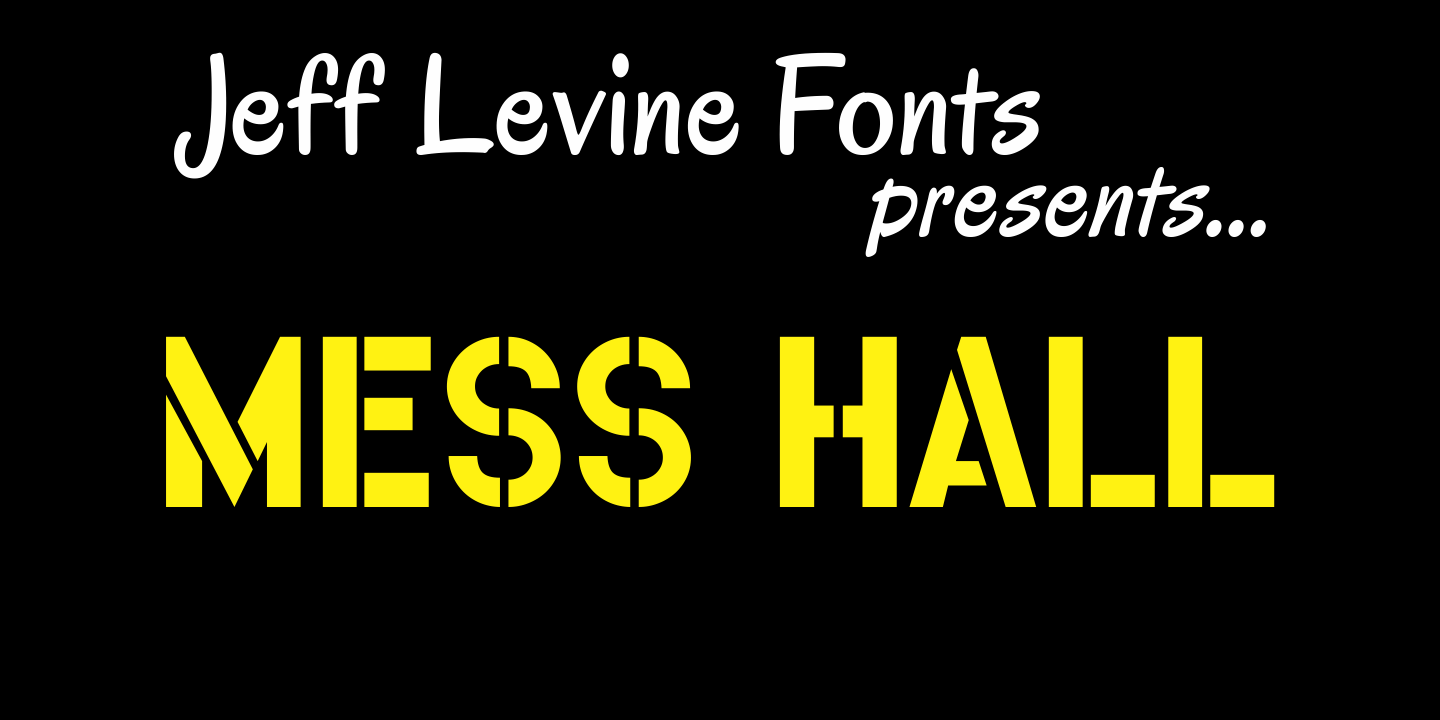
Mess Hall
Modeled from a set of individual painting stencils, Mess Hall JNL is named for the armed services cafeteria where thousands of enlisted men endured bland, boring meals day in and day out for years.
Mess Hall JNL Regular by Jeff Levine Fonts